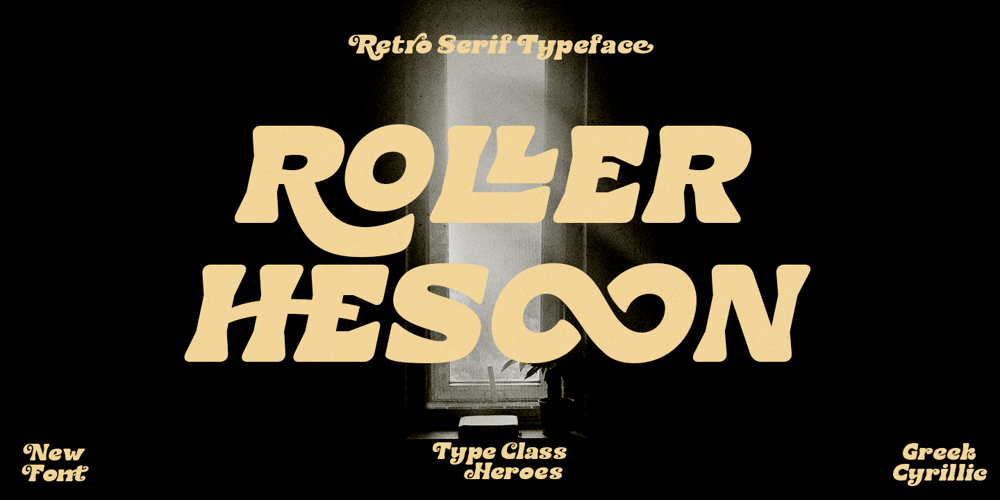
Roller Hesoon Font Family was designed by Suandana ipandemade and published by TypeClassHeroes. Roller Hesoon contains 2 styles and family package options. Retro and refined you can explore and combine creating rhythm for comfortable reading. Roller Hesoon supports more than 100 Latin-based languages and has extensive Cyrillic and Greek support for languages like Russian, Bulgarian, Ukrainian, and many more. Feature Uppercase & Lowercase Number & Symbol International Glyphs Multilingual support Alternative Ligature Cyrillic & Greek Feel free to drop us a message any time and follow my shop for upcoming updates.Hope you enjoy it.